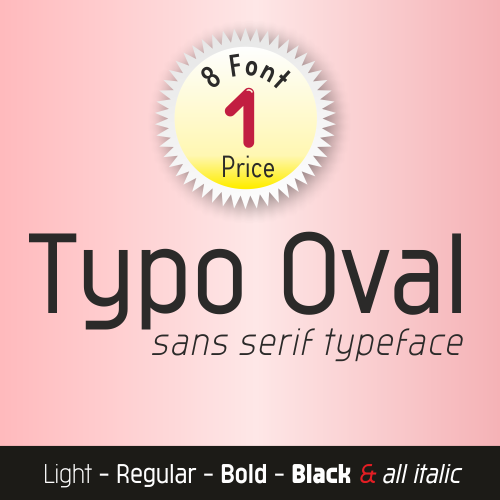
Typo Oval: Smooth Flow in Modern Sans-Serif Form
Typo Oval is a contemporary sans-serif typeface family designed by Mehmet Abacı and published by StudioTypo. Defined by its elegant oval curves and smooth contours, Typo Oval delivers a refined typographic voice that feels modern, balanced, and approachable.
The defining characteristic of Typo Oval is its soft elliptical construction. Unlike rigid geometric sans-serifs, its forms flow naturally, creating a harmonious rhythm across words and sentences. This subtle curvature gives the typeface warmth without sacrificing clarity or structure.
Typo Oval includes a full spectrum of weights, each accompanied by matching italic styles:
Light & Light Italic
Regular & Italic
Bold & Bold Italic
Black & Black Italic
This extended family enables designers to build strong typographic hierarchies from clean body text to bold, commanding headlines.
Design Highlights
▪ Oval-based letterforms, smooth, flowing shapes
▪ Modern sans-serif construction, clean and versatile
▪ Balanced proportions, ideal for both display and text use
▪ Full italic support, dynamic and expressive options
▪ Professional yet friendly tone, adaptable across industries
Ideal For
✔ Branding & visual identity systems
✔ Editorial and magazine layouts
✔ Web & app typography
✔ Corporate communication
✔ Packaging and advertising
Typo Oval is designed for projects that require elegance with clarity. Its flowing oval geometry adds personality while maintaining professional precision making it a versatile choice for modern design environments.